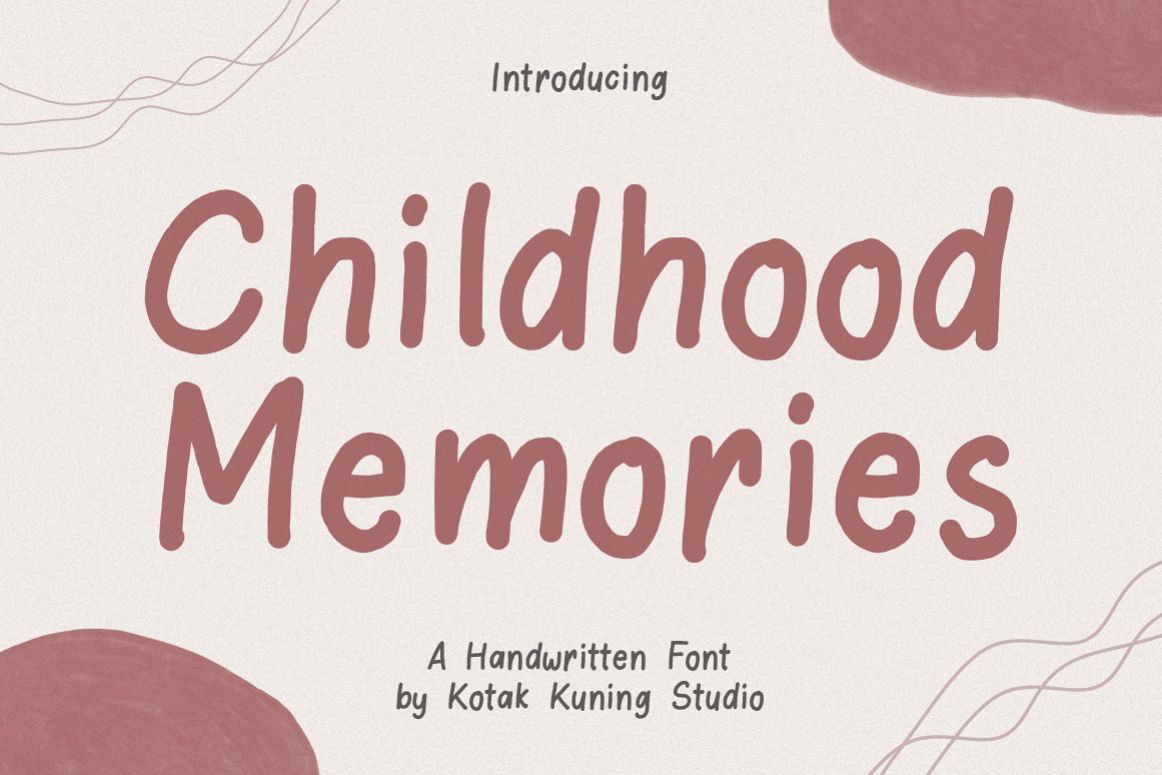
Funny Handwritten Font - Childhood Memories
ChildhoodMemories
Introducing Childhood Memories Font. A playful and unique font. It has a unique and different style and will give your design a fun touch.
• Childhood Memories includes capital and lowercase letters, Alternates, and Ligatures
• Numbers + punctuation
• Foreign language support
Funny Handwritten Font - Childhood Memories